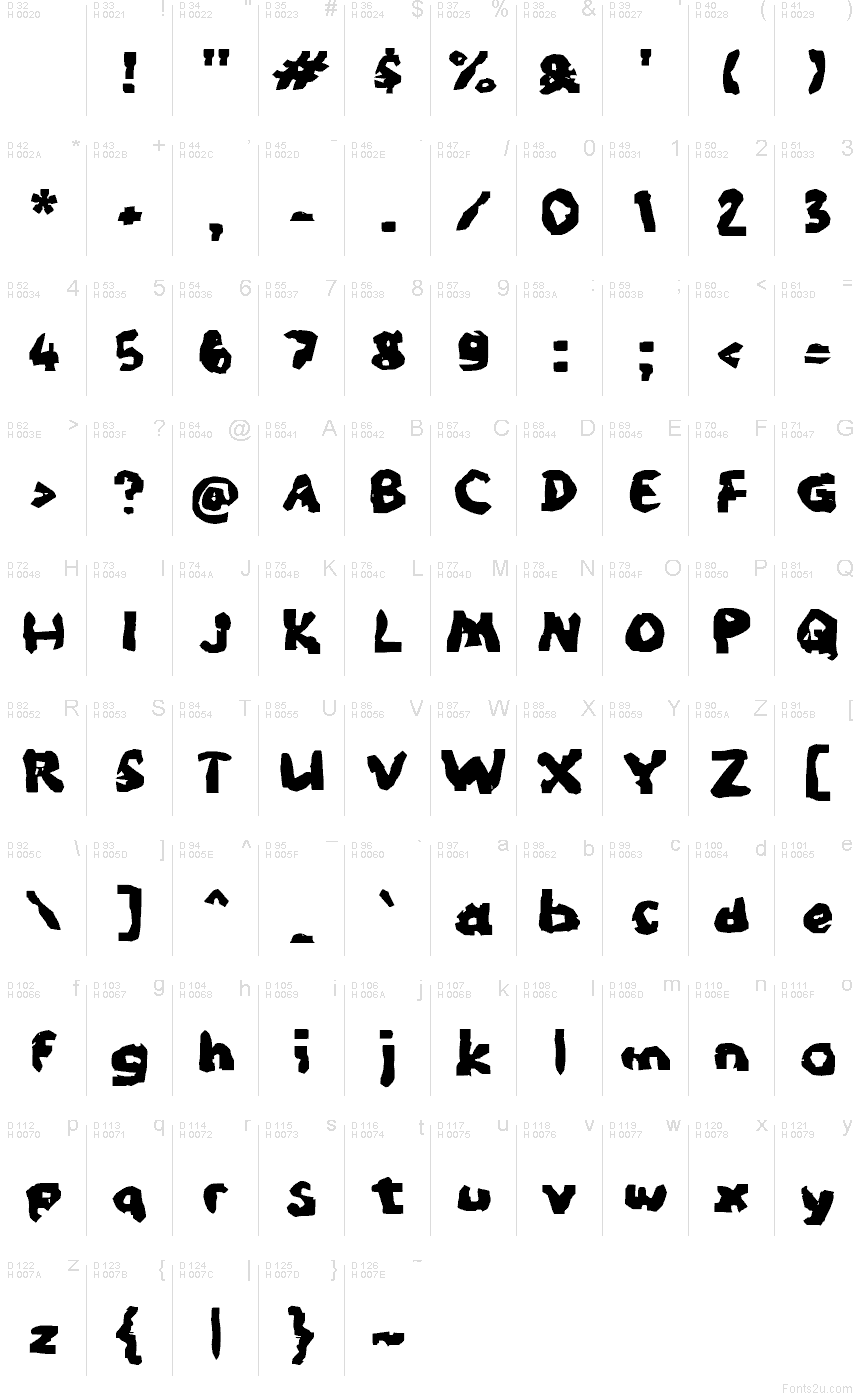
Zabikret by Wep is a free distorted display font with a rough, blackletter-tinged attitude. The letters look hacked from heavy shapes and then knocked out of true, mixing blunt curves with torn notches and uneven tops that give the whole font a restless, hand-cut rhythm.
It suits poster headlines, underground music artwork, game title cards, zine covers, and horror-comic branding where a free font needs grit more than polish. Because the forms feel dense and slightly unruly rather than ornate, it also works for short cover lines or monogram-like marks that need a medieval echo without reading as formal calligraphy.